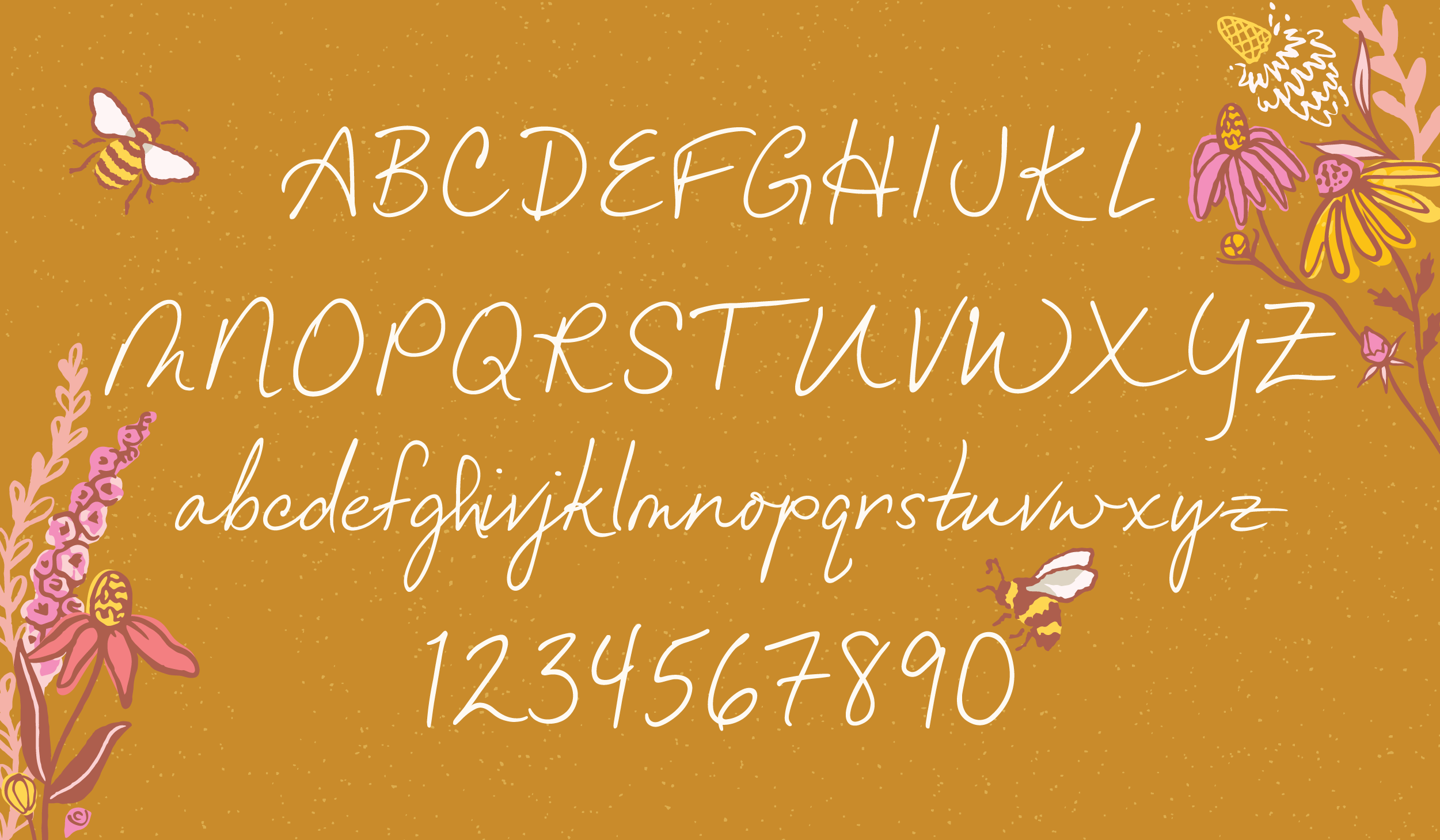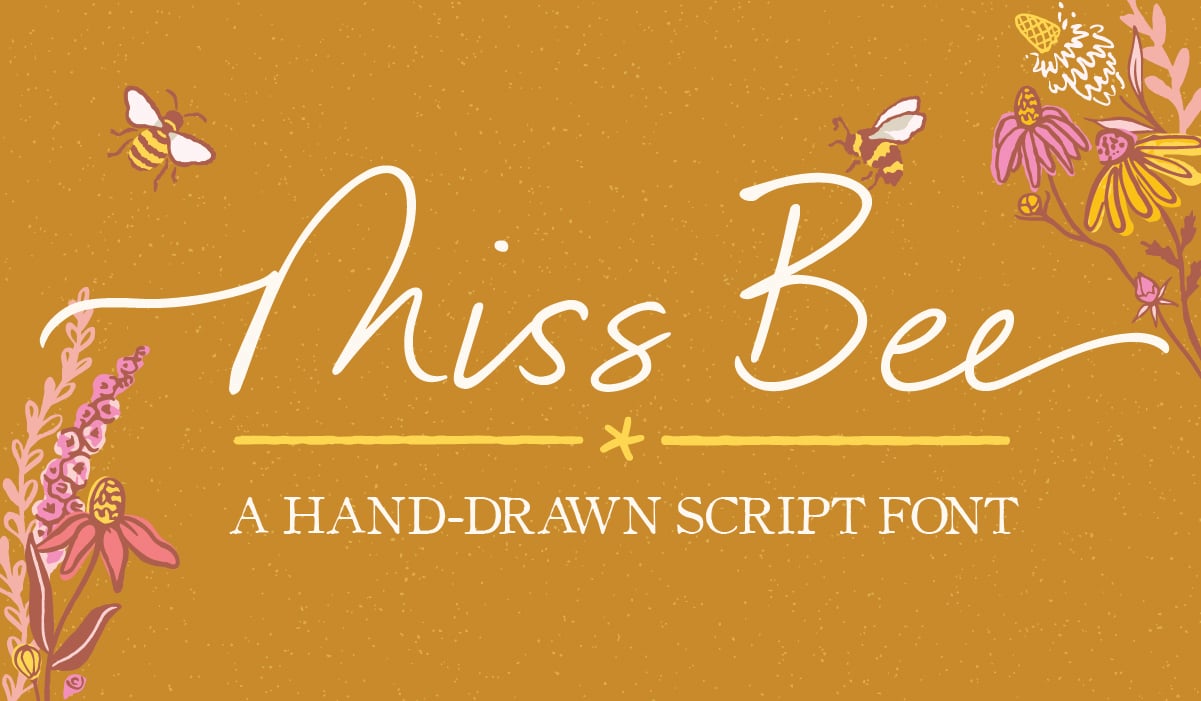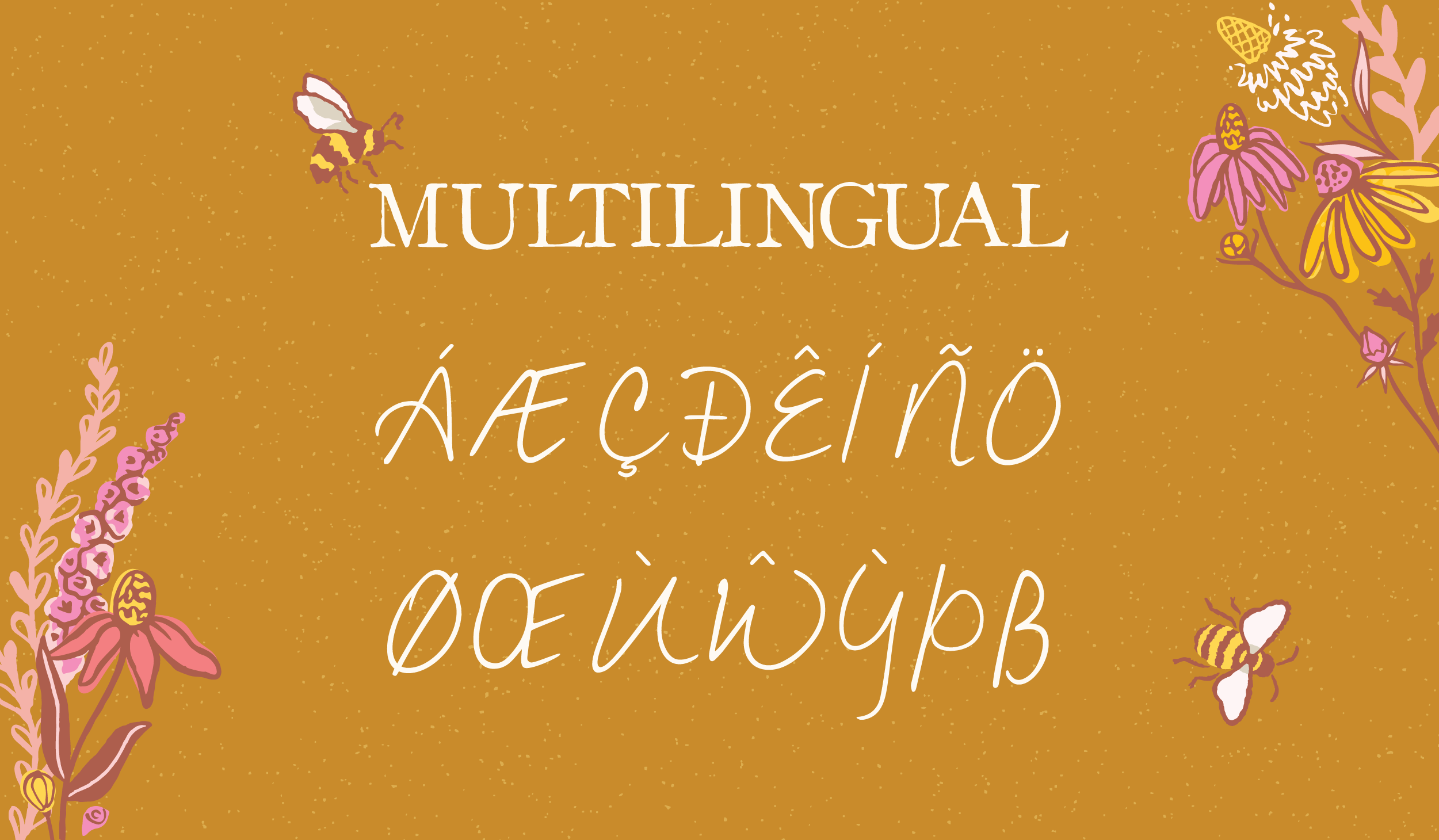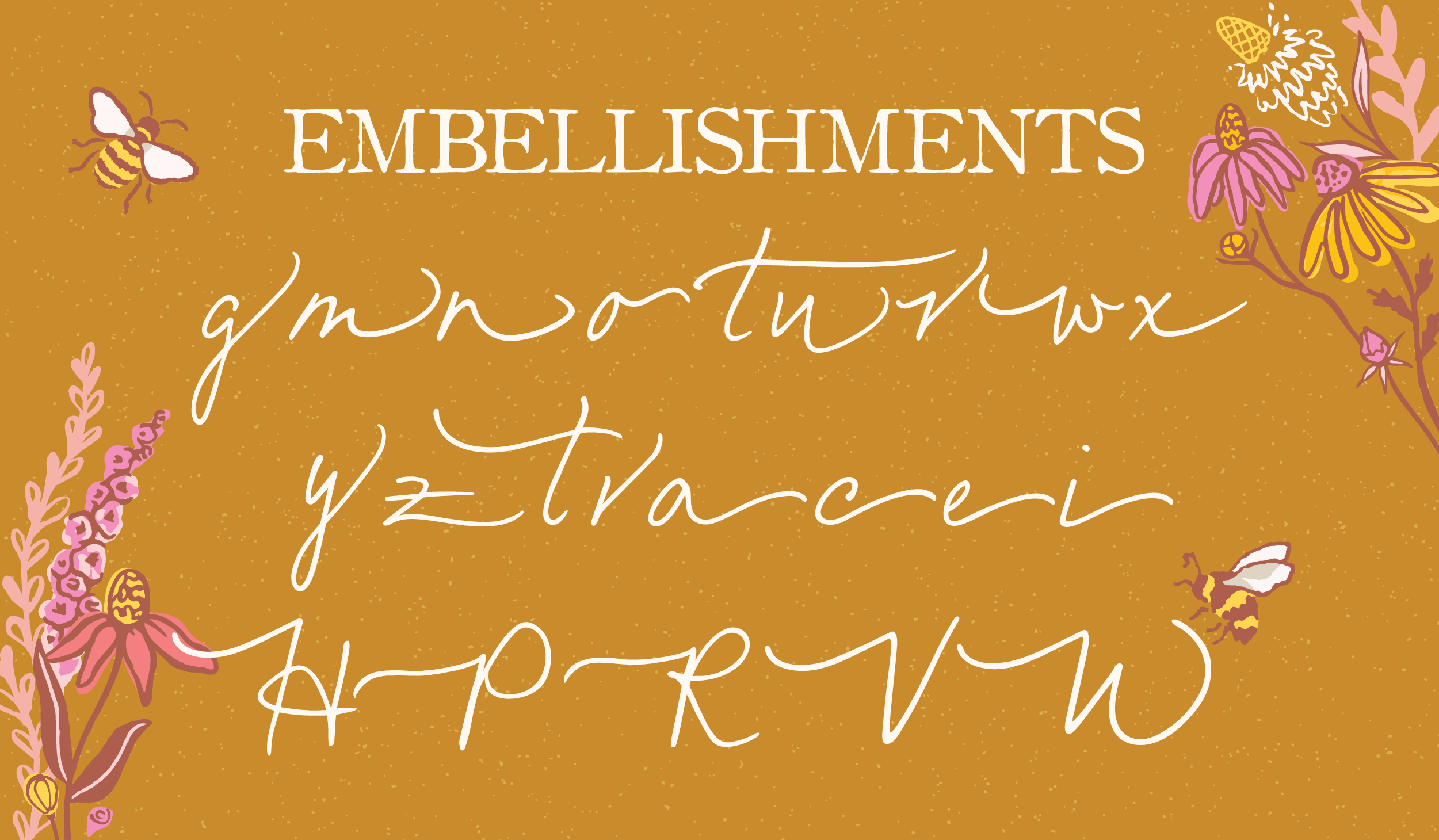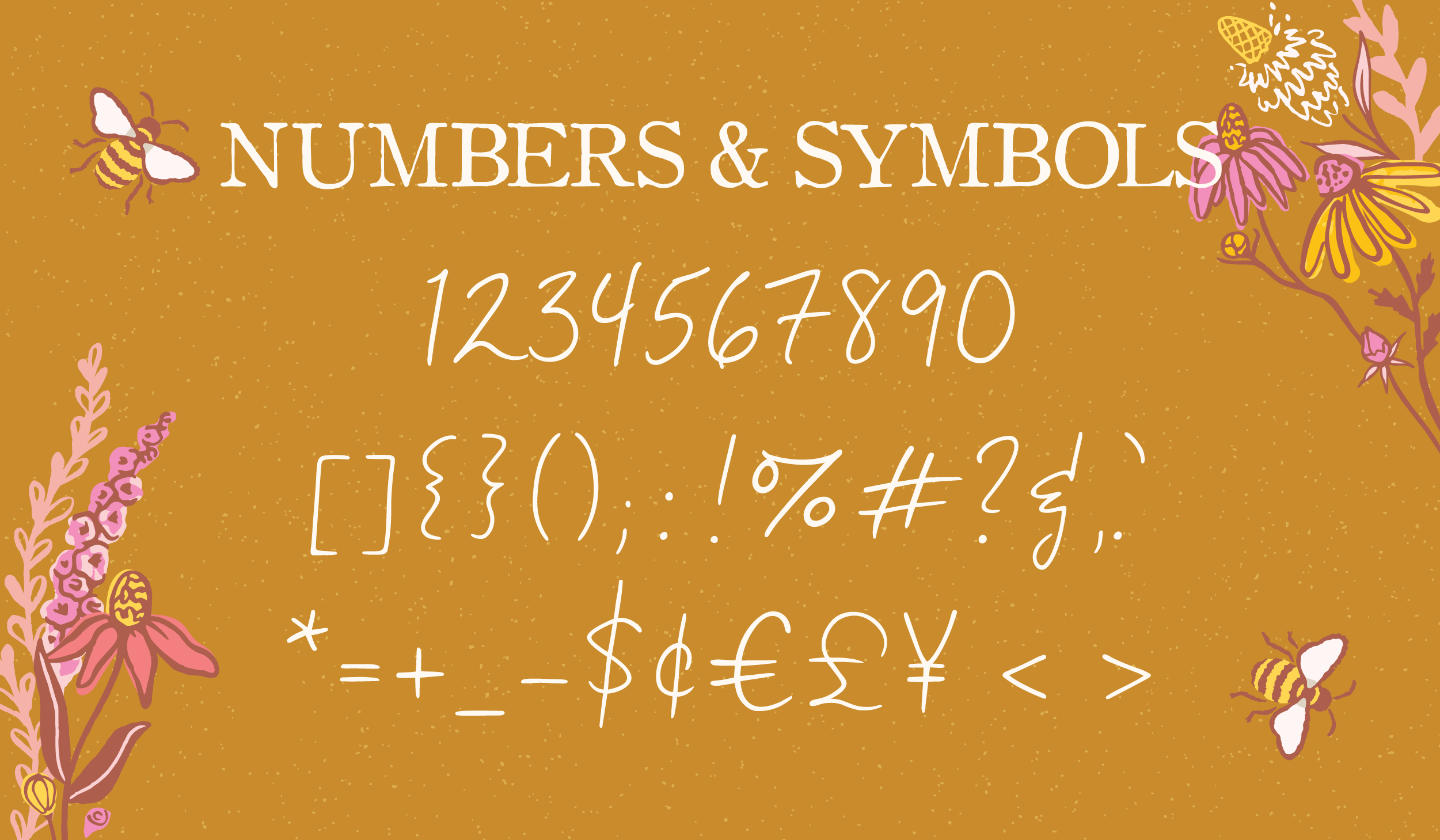
Miss Bee Script Font
Fun fact! Miss Bee is my handwriting in a font. I've gotten a lot of compliments on it over the years so I figured it was time I made a font of it! Includes ligatures, embellishments, numbers, and symbols, and is multilingual. (Note: You can buy Miss Bee Script and All Caps in my Miss Bee Font Bundle.)